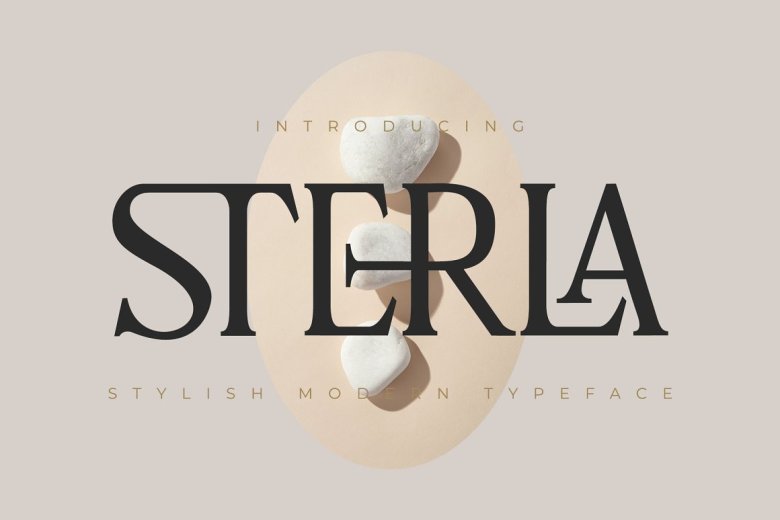
Sterla Font
Present a Formal and Professional Impression with Sterla modern stylish serif font. Do you want your design to look professional and classic? If that’s the case, Sterla Font is a font that you must try. Really, what is Sterla Serif? Sterla serifs are ligature arts that add certain character to a typeface, contributing to the unique feel and look that each of these fonts characterizes. Choose the letter you like from a variety of variations to get a look that suits your taste.
Sterla is a very versatile font, It is a medium contrast display font perfect for branding projects, logos, wedding designs, social media posts, advertisements, product packaging, product designs, labels, photography, watermarks, invitations, stationery and any project, made with a high level of readability. Sterla modern stylish typeface is a modern fashion serif font, each letter has been carefully crafted to make your text look unique.
Sterla Serif Font